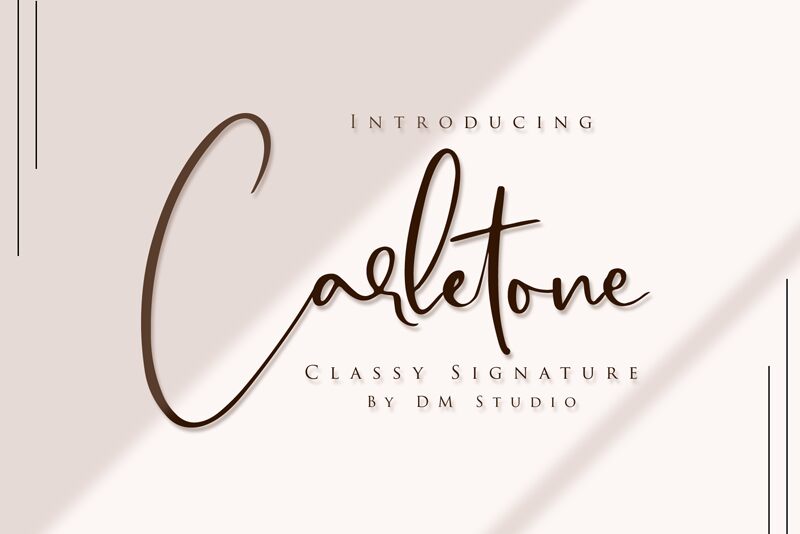
Carletone, a captivating handwritten font designed by Dm Letter Studio - Dimas Prasetyo, brings elegance and personality to your projects. With its semi-light weight, this signature-style font adds a touch of sophistication to wedding invitations, branding materials, and personal blogs. Its flowing strokes and graceful curves create an exquisite visual experience that captivates readers. Carletone's versatility allows it to shine in various projects, including luxury fashion magazines and upscale product packaging. Elevate your designs with Carletone's charm and let it effortlessly convey a sense of refined beauty.